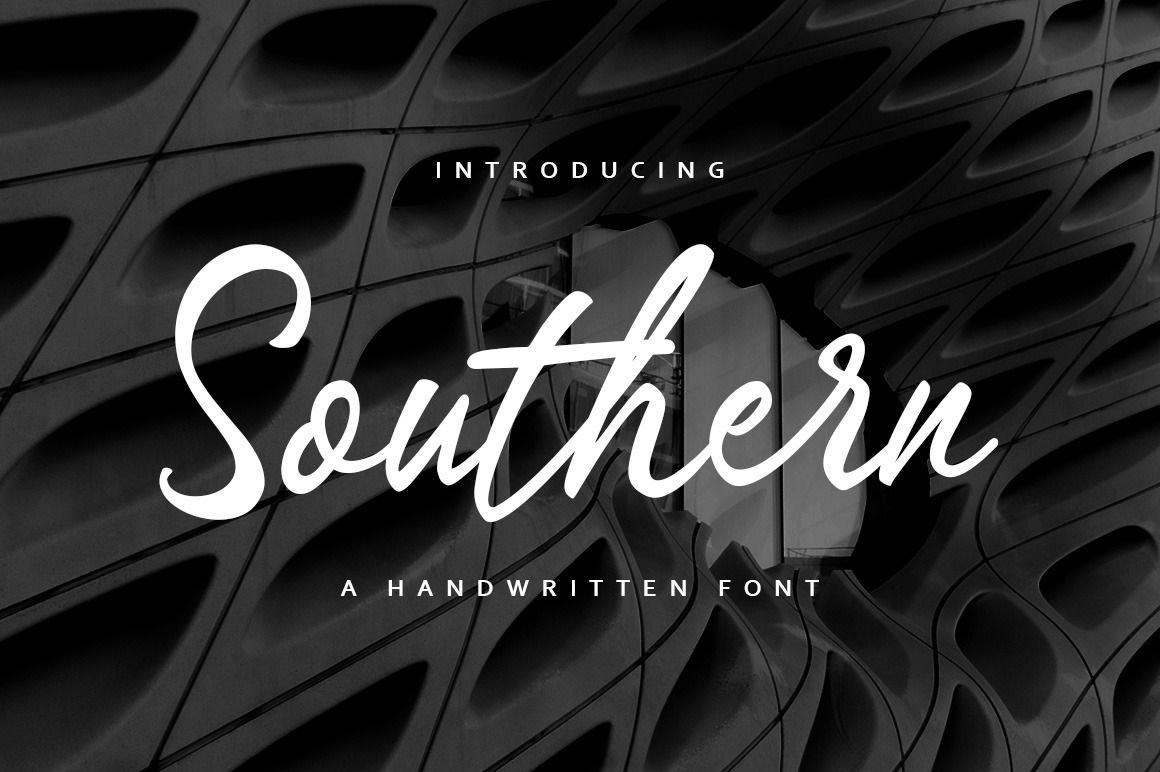
Southern is a signature typeface with a natural handwritten style. Southern is perfect for branding, logos, wedding designs, social media posts, advertisements, product packaging, product designs, label, photography, watermark, invitation, stationery, or anything that needs a handwritten touch.